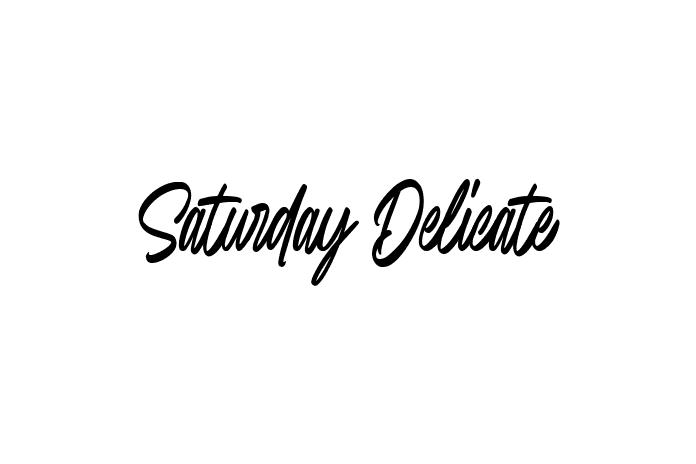
Pahat Script
is a brush font that is made by the hands of the experts with great love so that it produces works that are so natural. The strokes in the fonts make your project look extraordinar
Font designer ABDUL GHOFUR
Typeface classification Script